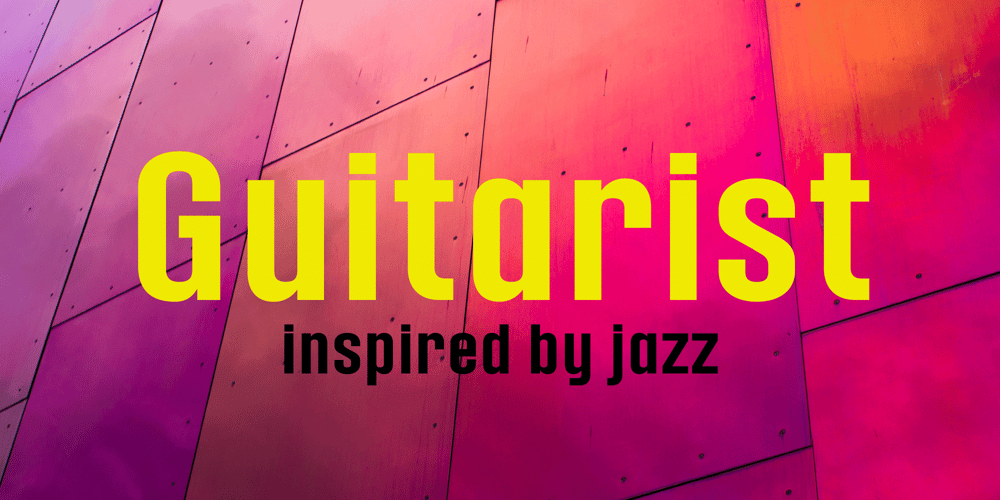
Guitarist Font Family was designed by SAMUEL DU and published by SAMUEL DESIGN. Guitarist contains 1 styles and family package options. Guitarist, a symbol of freedom and self-confidence. A good font must be enduring and of high quality. This font is simple in shape, and at the same time pays attention to changes in thickness, and strives to be classic and timeless. This font is great for music, fashion, magazines and is very eye-catching. GUITARIST can be matched with various fonts, and the visual effect is very strong. This font is modern and elegant with high-quality details. Designers like listening to jazz very much, looking for freedom, passion, independence, and change in jazz, and integrating these spirits into this font. I hope this font will help your brand be more visible.